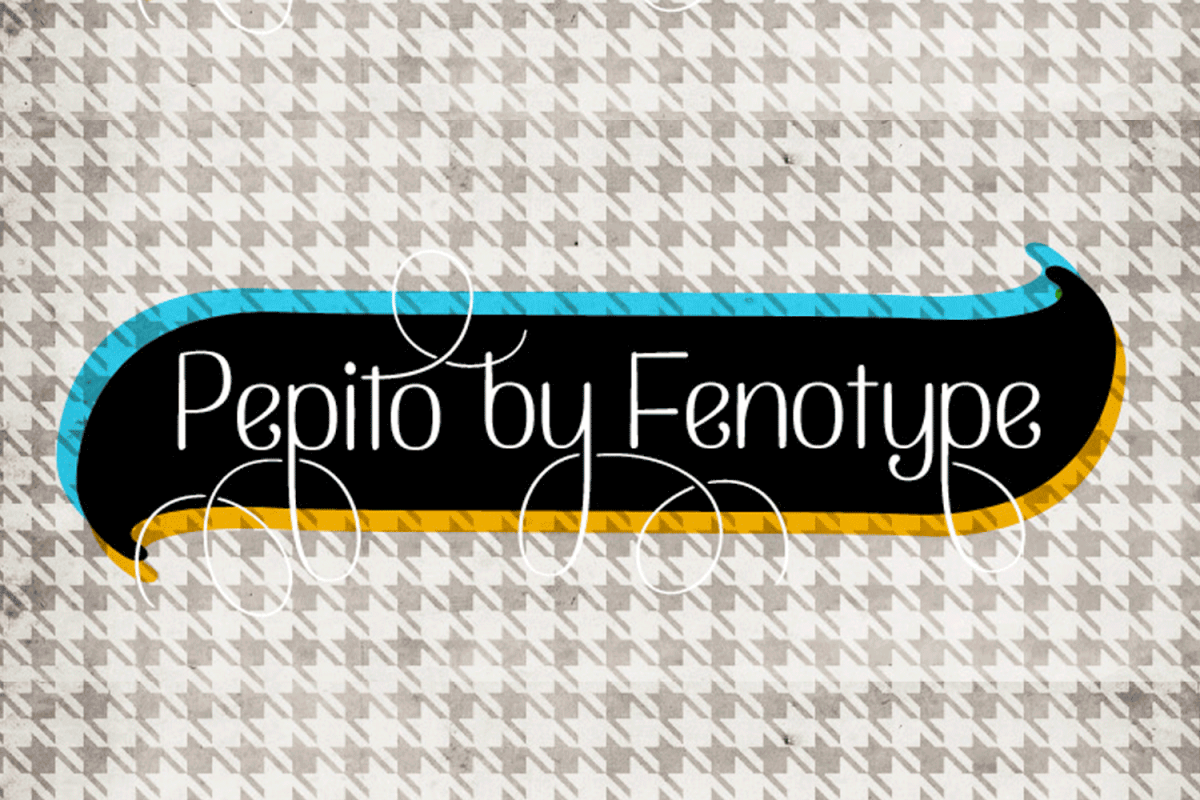
Pepito
Pepito is a non connected version of Pepita Script.
Pepito has a nice set of special features including a set of ornaments
and Swash, Stylistic and Contextual Alternates that you can easily
access in any Opentype savvy program.